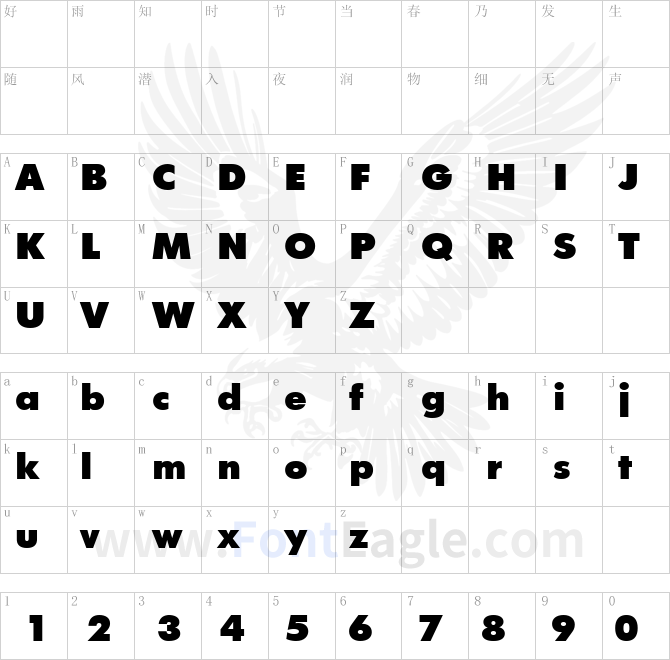
- Font name:FuturaFuturisXC
- Font Full Name:PT FuturaFuturis Black Cyrillic
PT-FuturaFuturis-Black-Cyrillic is a great font, widely used in graphic design, single-page menu design, poster design and other fields, and is deeply loved by designers.PT-FuturaFuturis-Black-Cyrillic download.